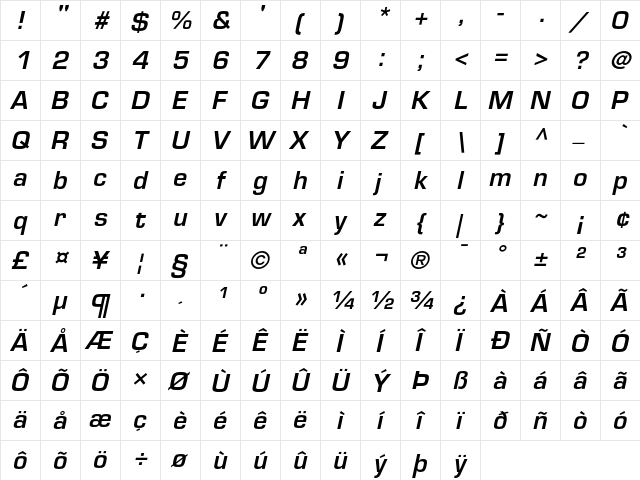
Eurostile Demi Oblique
Design Context for Eurostile Typeface
Eurostile takes a measured approach to typography — its balanced proportions and neutral character make it a reliable workhorse for both digital and print work. Its italic angle brings a sense of urgency and motion to the letterforms.
Pro Tip: Try Eurostile for annotation and caption copy alongside an upright companion — the contrast in angle creates a dynamic but ordered typographic system.